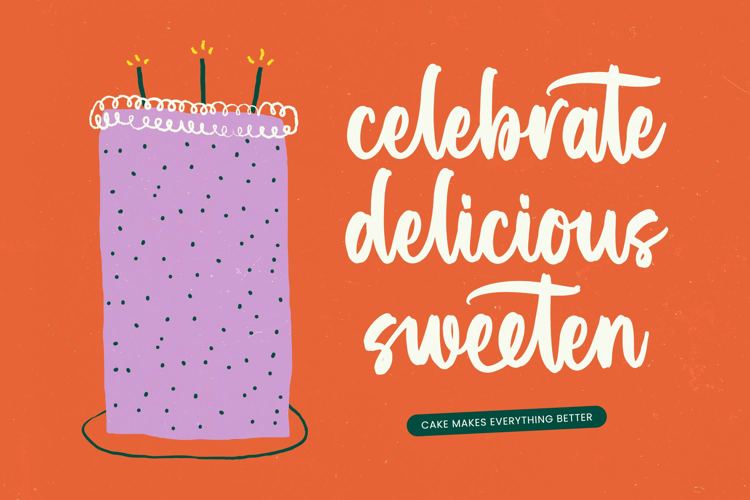
Smiles Chapter VERSION Font
Smiles Chapter - Bold Brush Font
Inject immediate personality and charm into your designs with the effortlessly spirited flow of Smiles Chapter - Bold Brush Font. This signature script offers an authentic, high-impact aesthetic, characterized by its thick, spontaneous strokes and genuine handmade warmth. The bold weight ensures optimal legibility and striking presence, making it the definitive choice for titles, headers, and any element requiring unmissable display typography. It captures a celebratory, carefree mood that elevates branding beyond the conventional, providing an immediate sense of artisan quality.
Unlock unparalleled creative flexibility with an expansive glyph library built into the core design of Smiles Chapter - Bold Brush Font. Featuring 584 total glyphs, including a vast selection of 186 ligatures, 60 alternates, and 06 signature swashes, this typeface allows designers to craft truly custom lettering layouts. The rich OpenType features ensure natural, variable connections between characters, preventing the repetitive look often found in standard script fonts and facilitating dynamic composition for both print and digital mediums.
Define your brand identity with immediate, memorable character across a range of commercially vital applications. Smiles Chapter - Bold Brush Font is perfect for projects demanding a fun yet polished aesthetic, including food packaging, beverage labels, youth-oriented fashion apparel, and impactful social media graphics. Use this vibrant branding tool for greeting cards, invitations, or any campaign where spontaneous joy and artisan quality are the primary selling points.